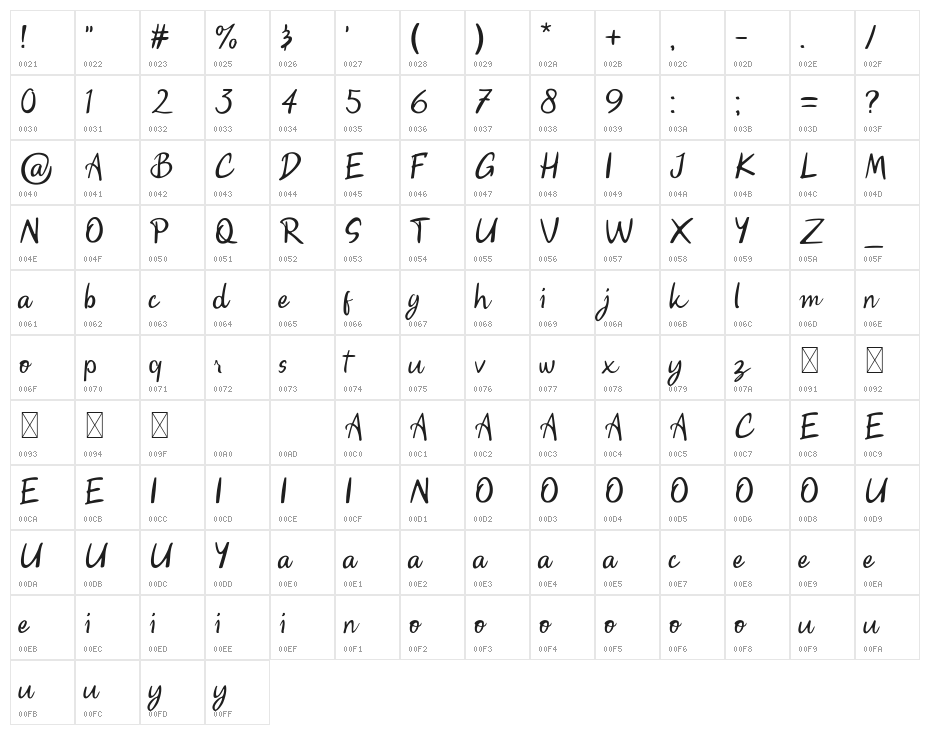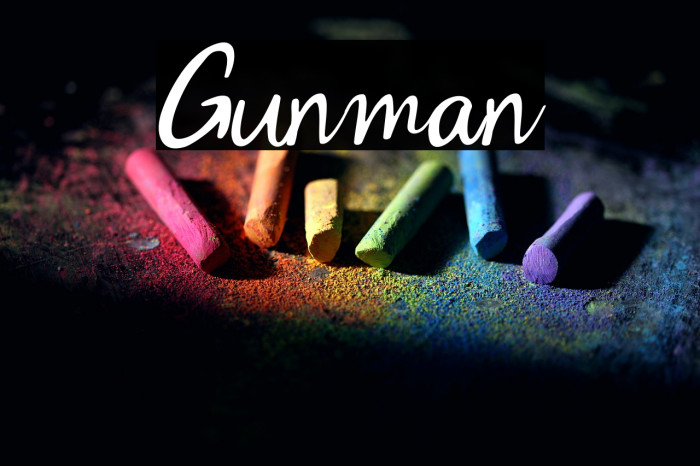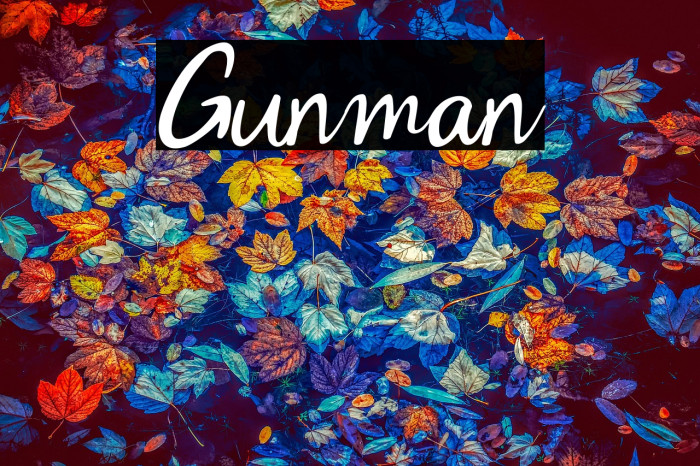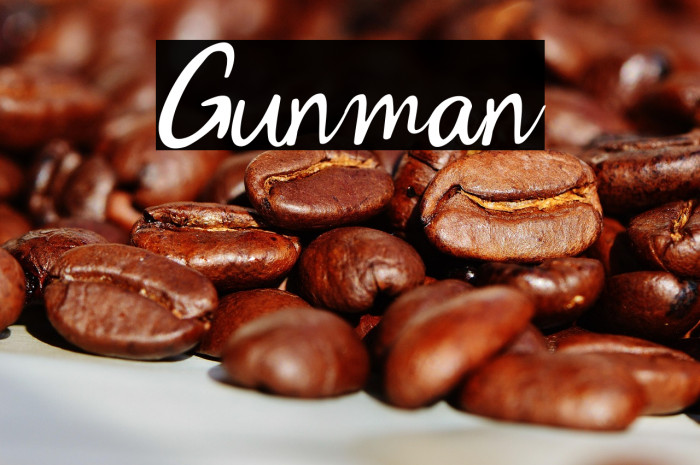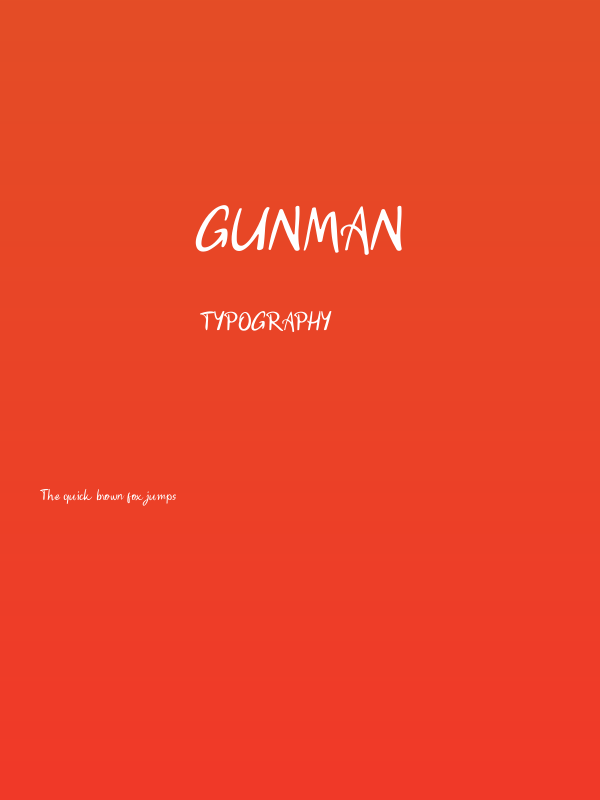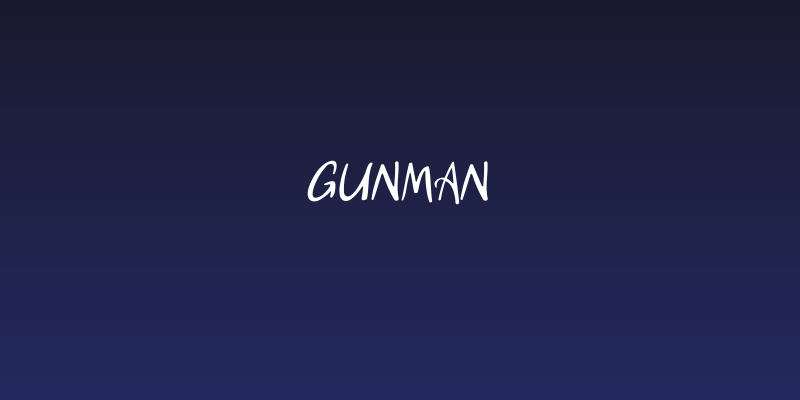
Gunman Font
Gunman Description
This font features a dynamic and fluid script style, characterized by its smooth, flowing lines and slightly slanted letters. The uppercase letters are bold and expressive, while the lowercase letters maintain a consistent rhythm, adding a touch of elegance and sophistication. The numerals are clear and easy to read, complementing the overall aesthetic. Special characters are crafted with the same attention to detail, ensuring a cohesive look across all glyphs. This font's lively and energetic appearance makes it suitable for a variety of creative applications.
| Use Case | Logos, Headlines, Decorative text |
| Proposed Projects | Ideal for invitations, greeting cards, branding, and social media graphics. |